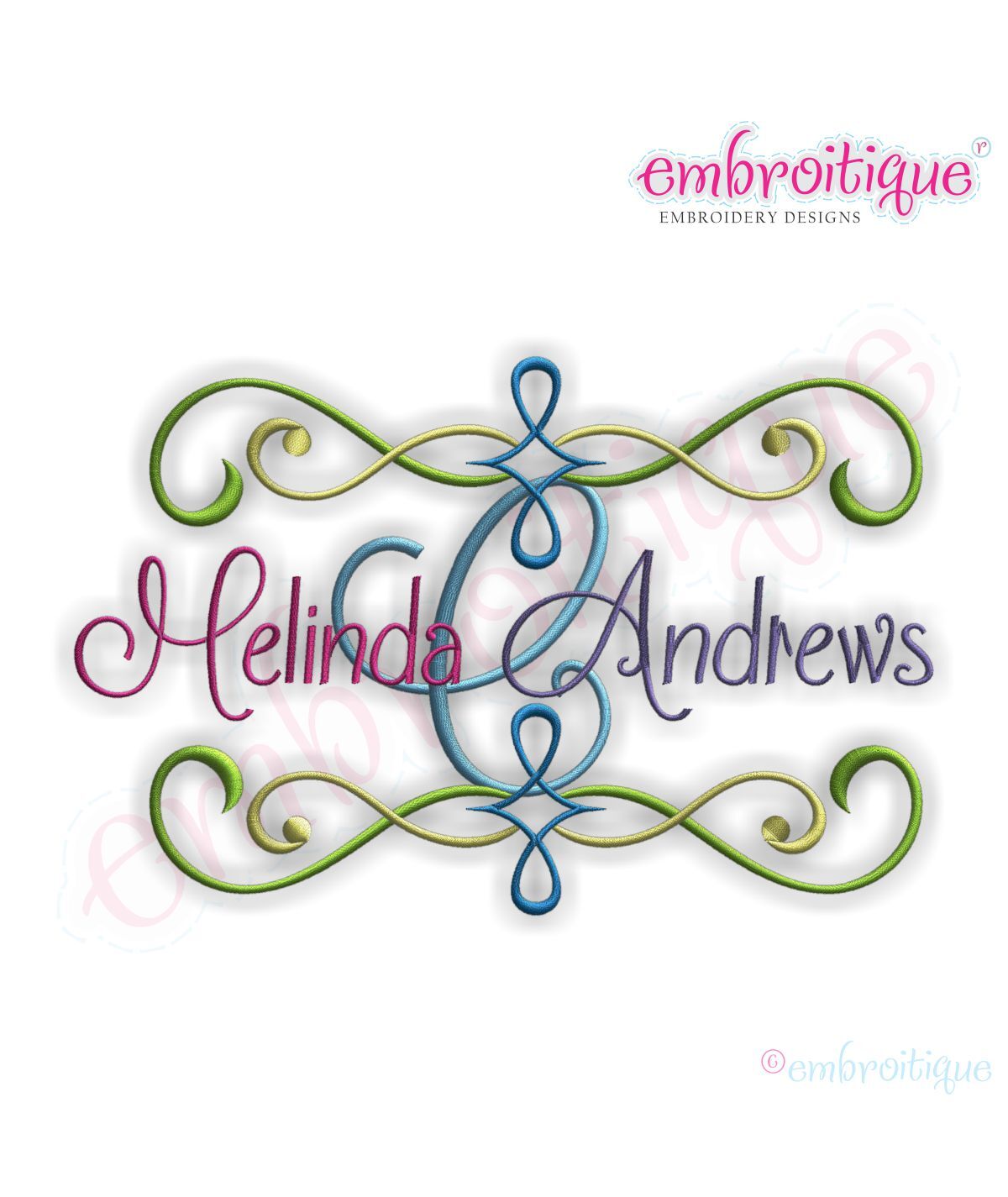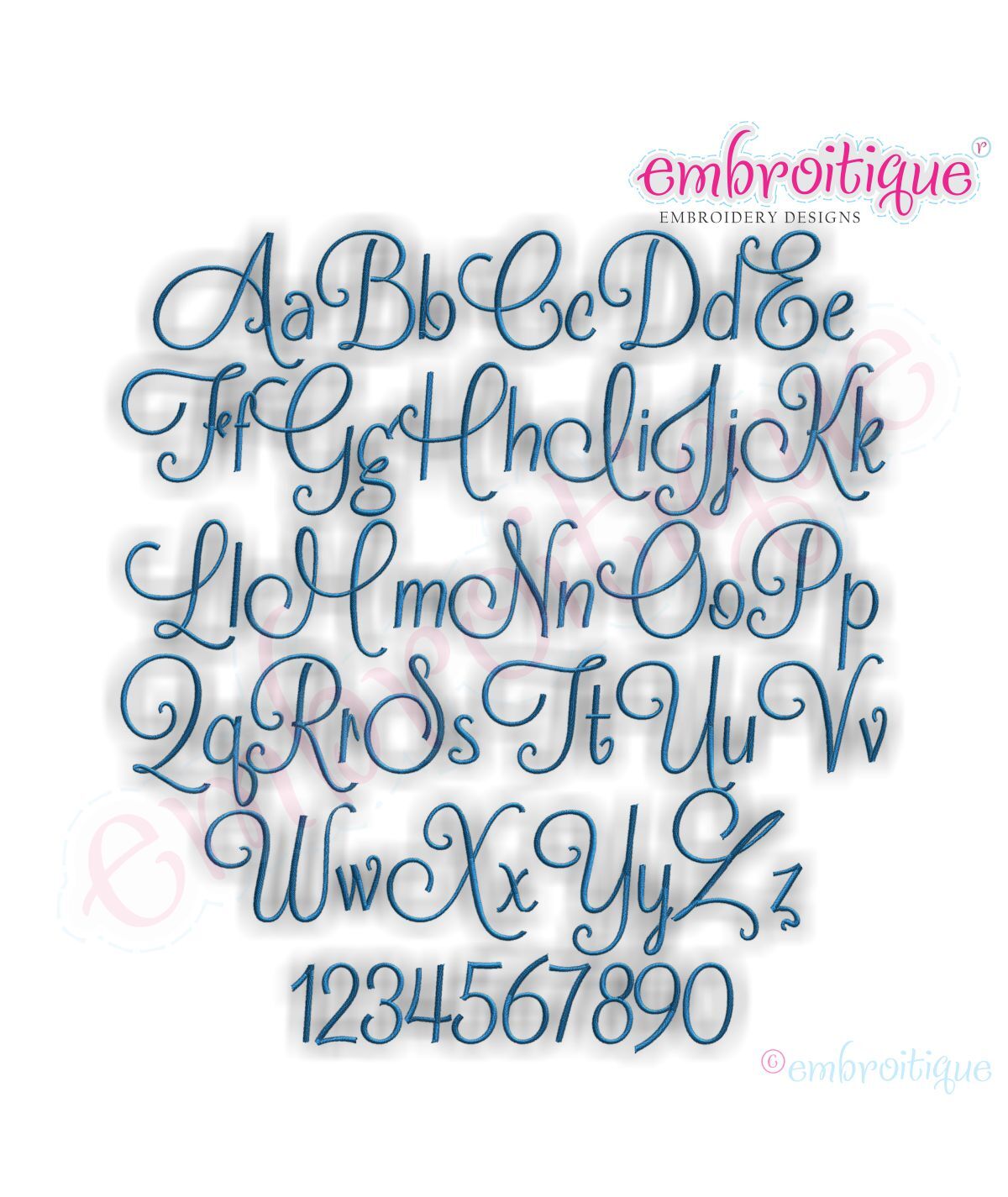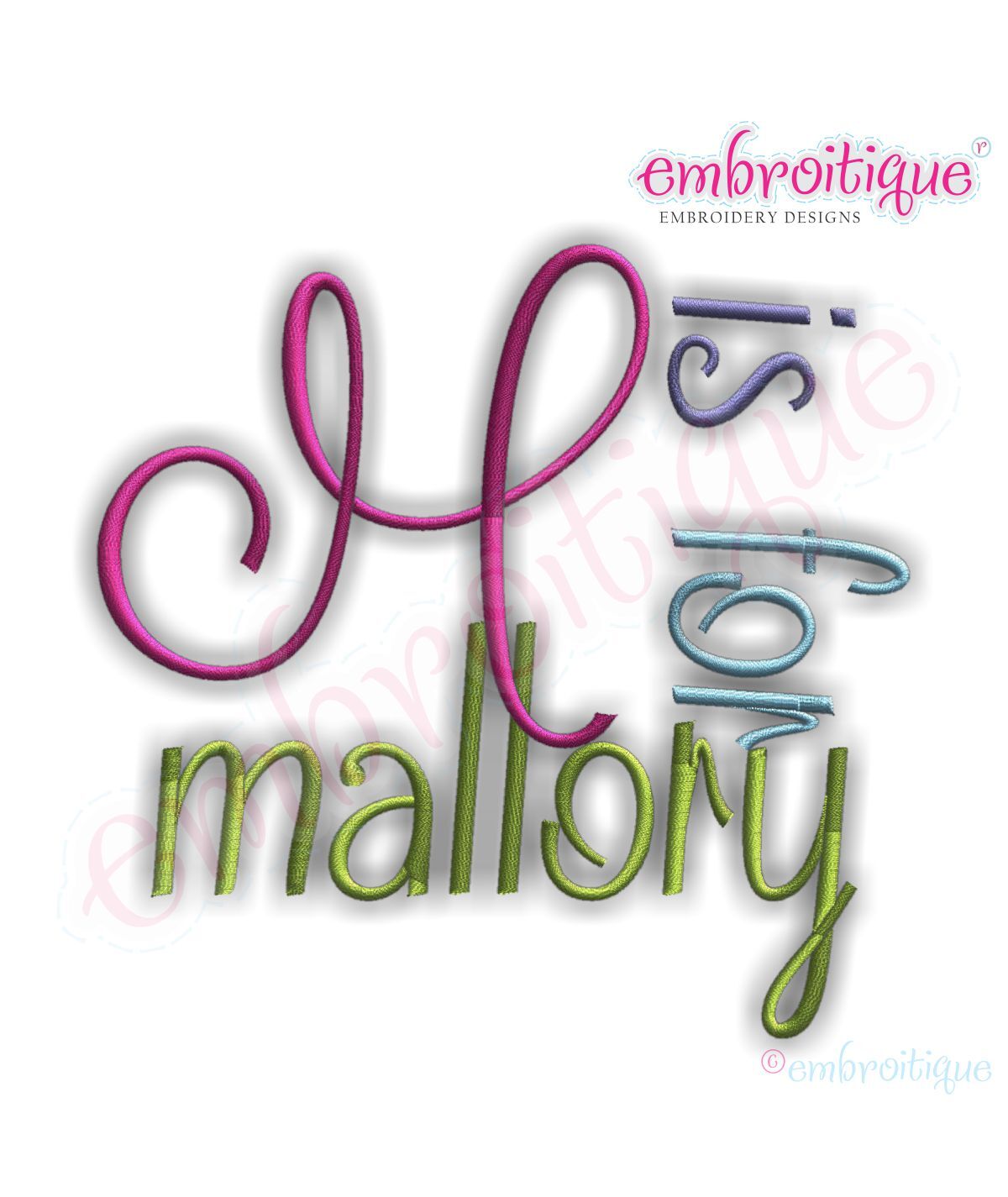
Mallory Monogram Font Set - Cute, girly - .5", 1", 1.5", 2", 3"
This is such a beautiful monogram font. Â Perfectly paired with our Andrews Font Frame in the second photo.
This is such a beautiful monogram font.